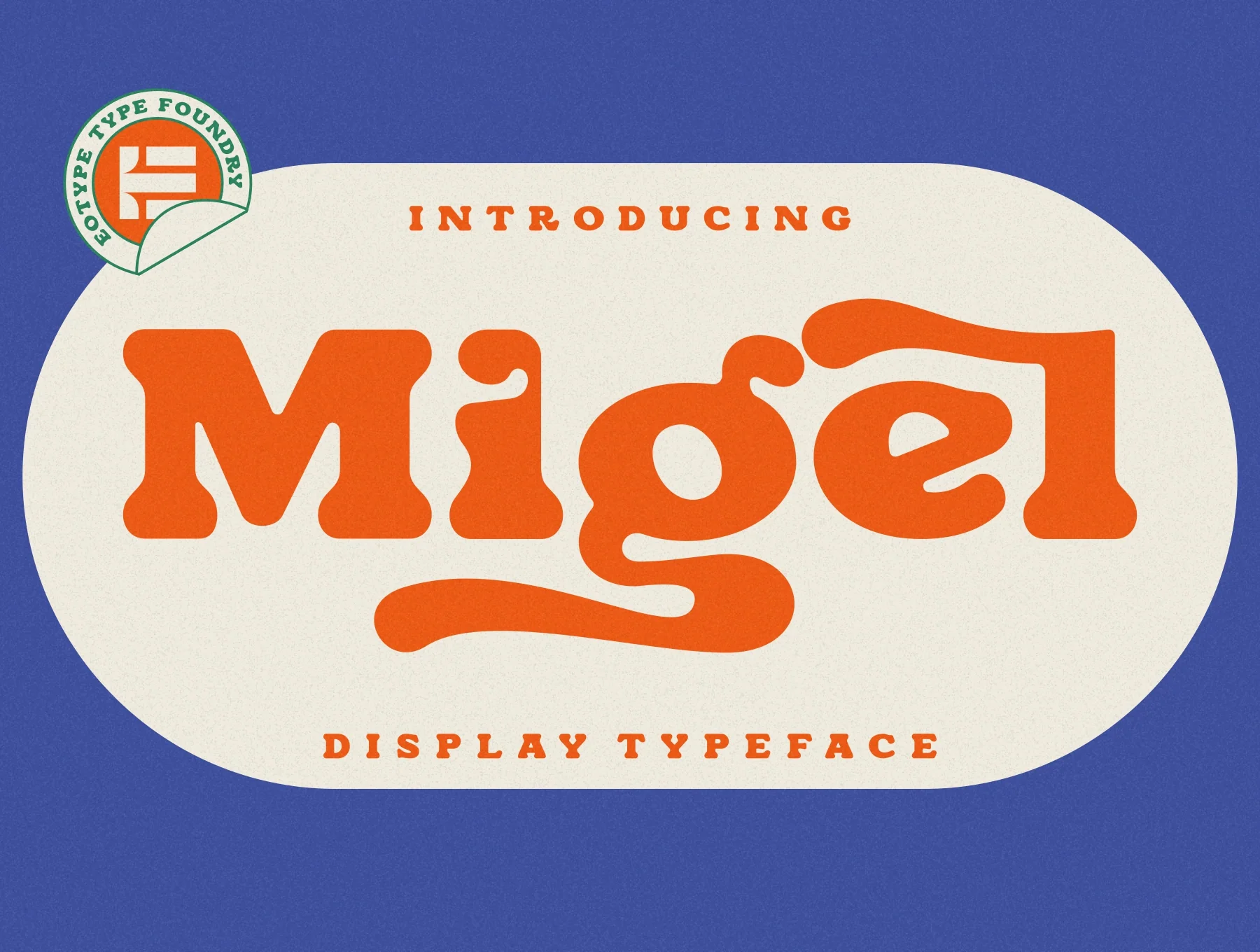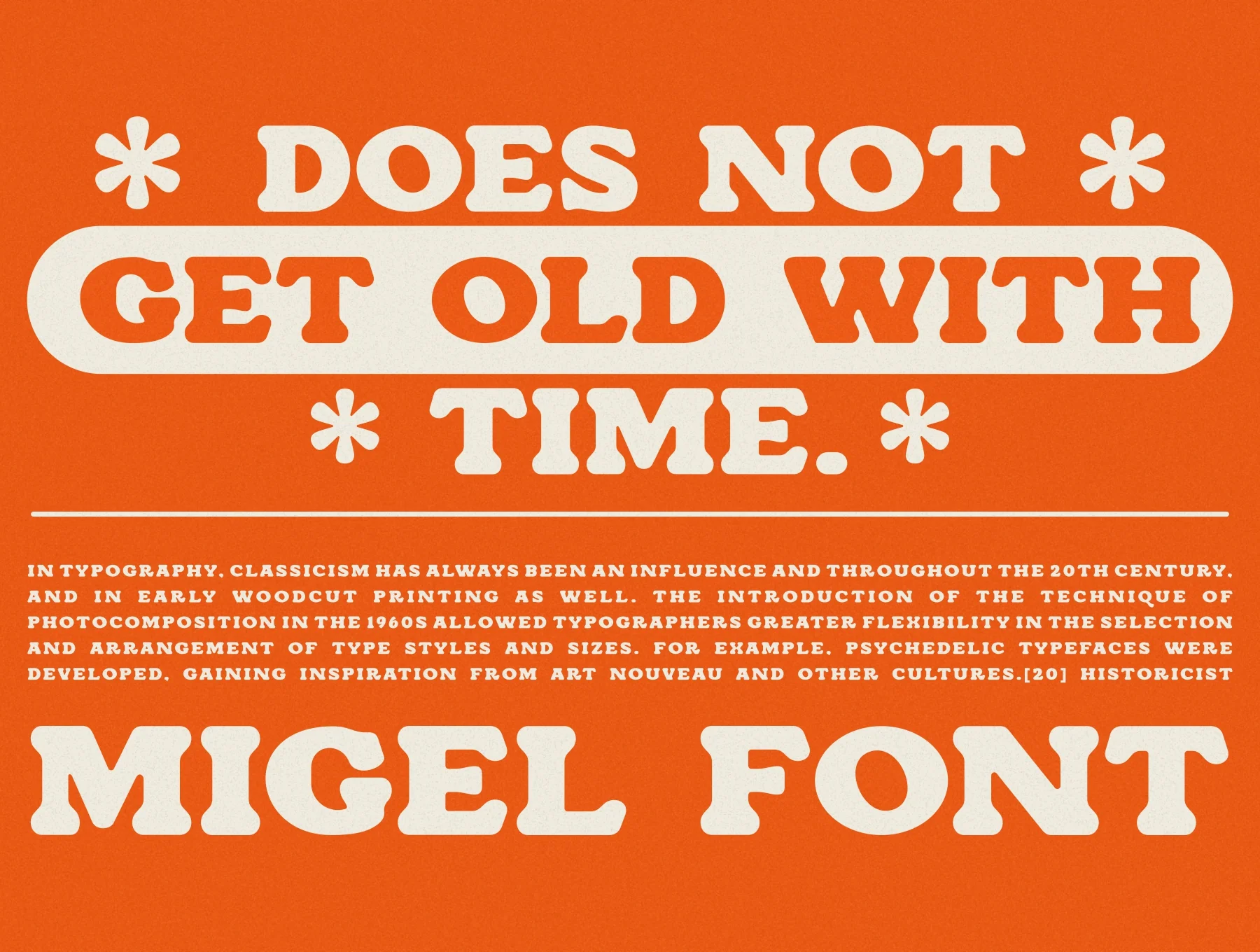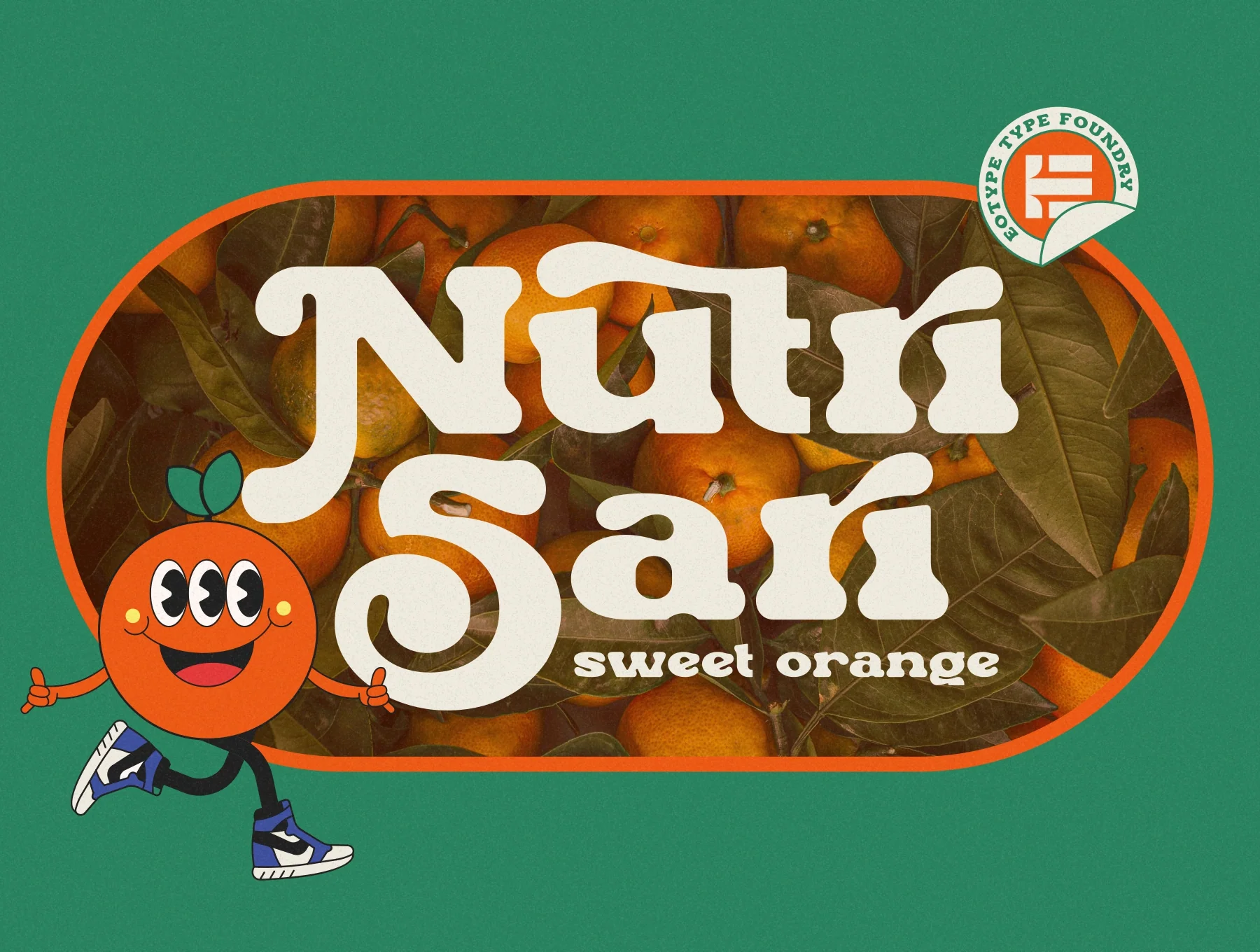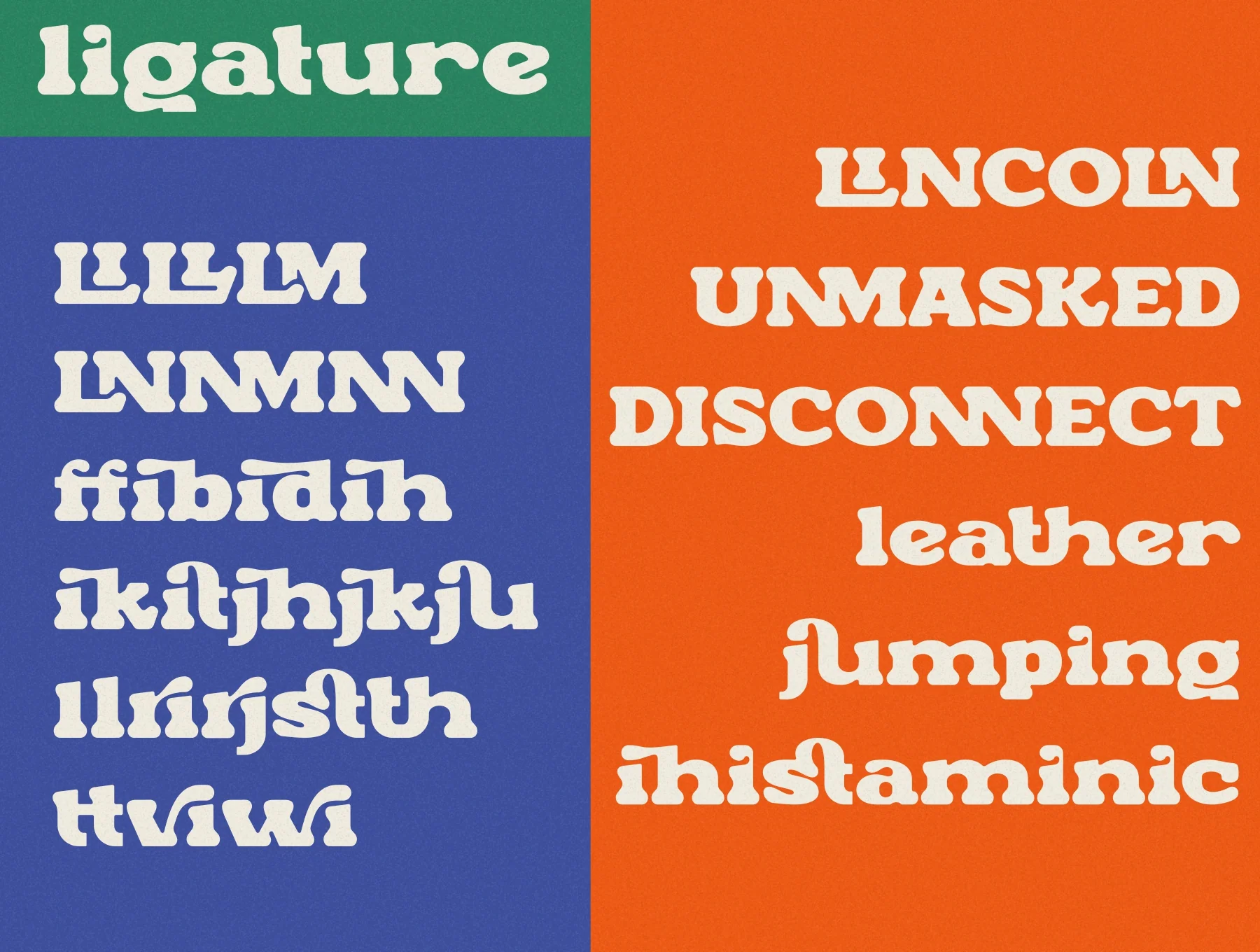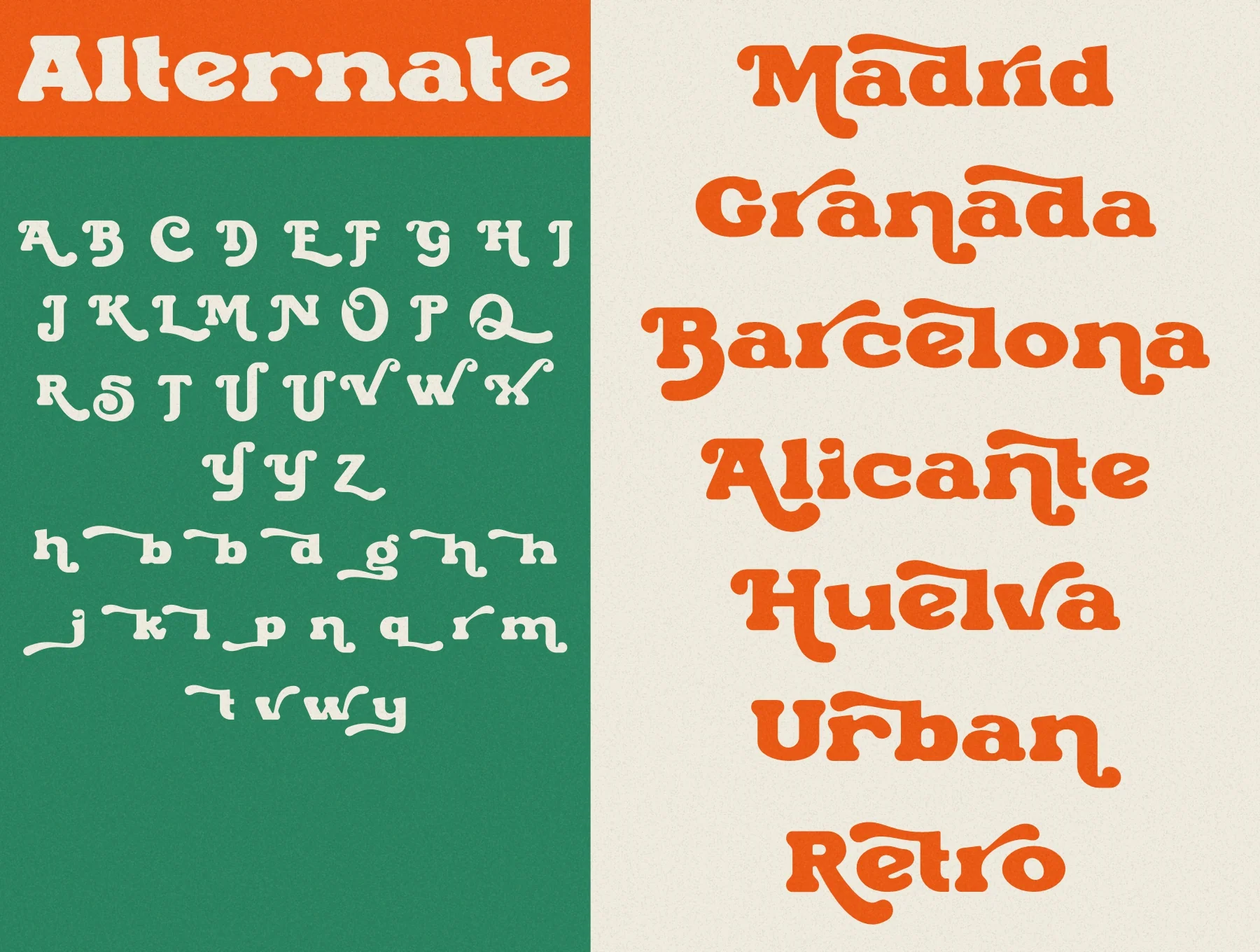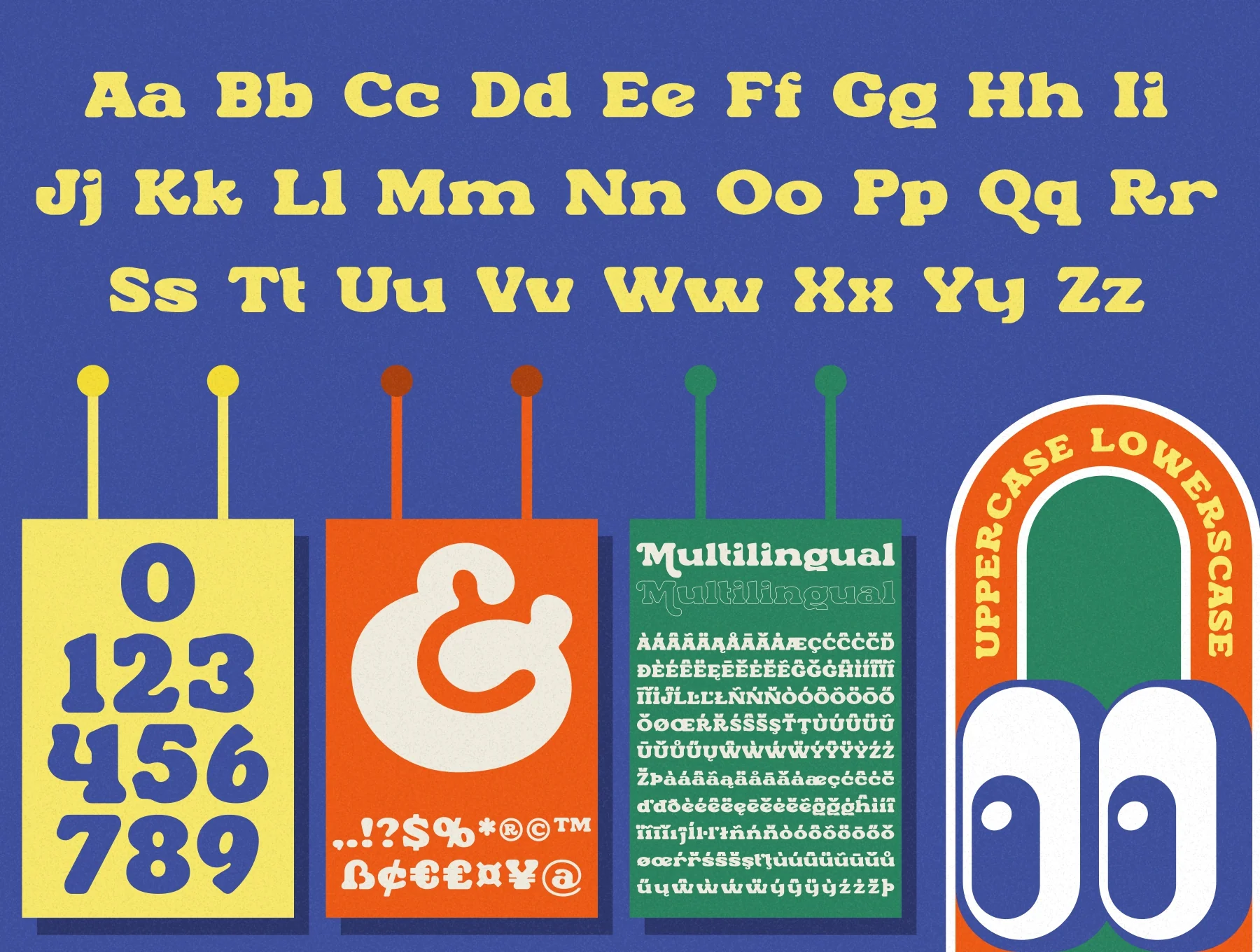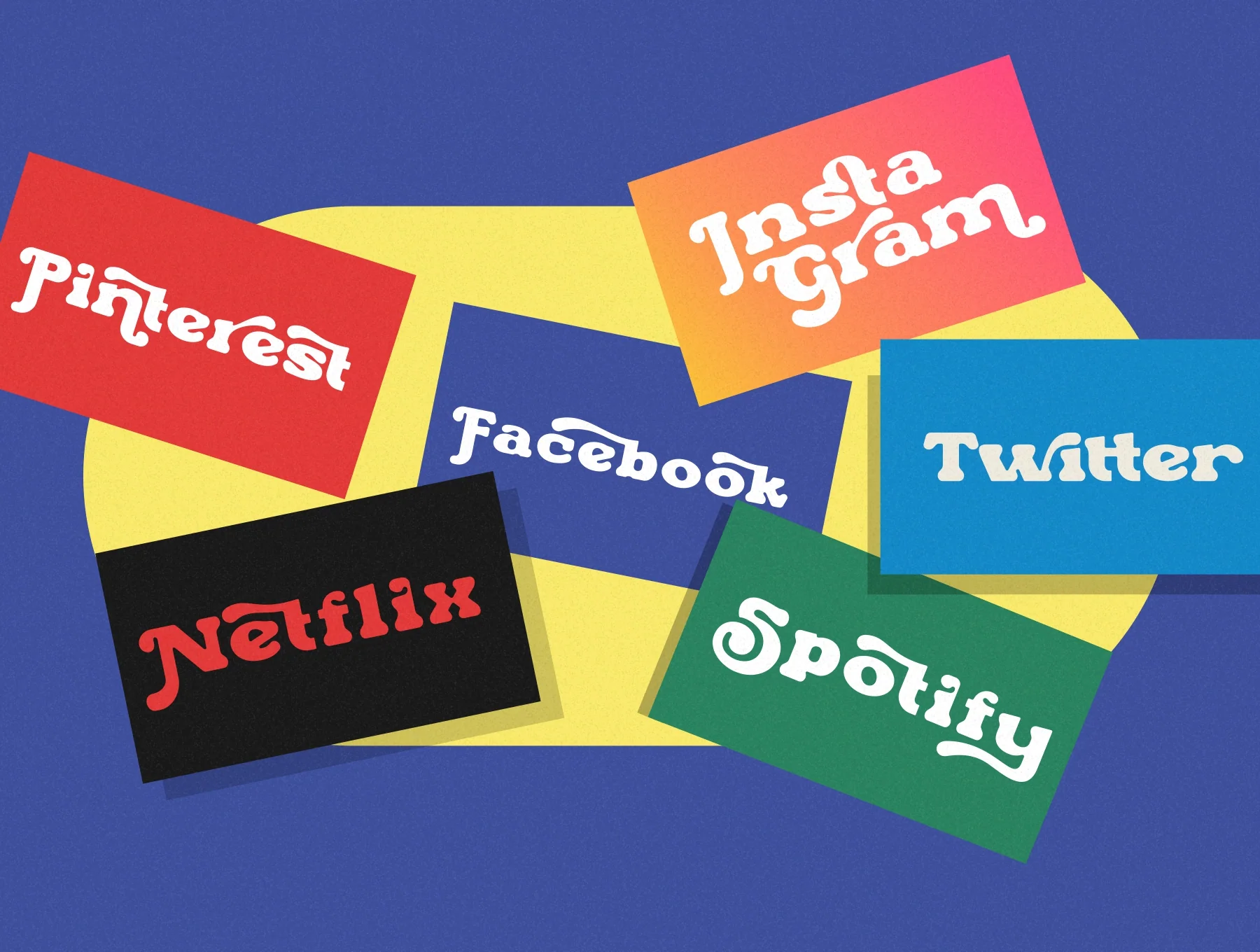
Migel - Display Typeface
Migel bold display font
Basic glyph
Normal weight
Numbers and marks
Alternate styles and ligatures
Basic glyph
Normal weight
Numbers and marks
Alternate styles and ligatures
Migel is a bold display font with rounded edges and a gentle feel, bringing a fun, approachable look to your work. Ideal for retro, vintage, and urban themes, it includes alternate styles and ligatures for versatile use in logos, product labels, posters, and more.